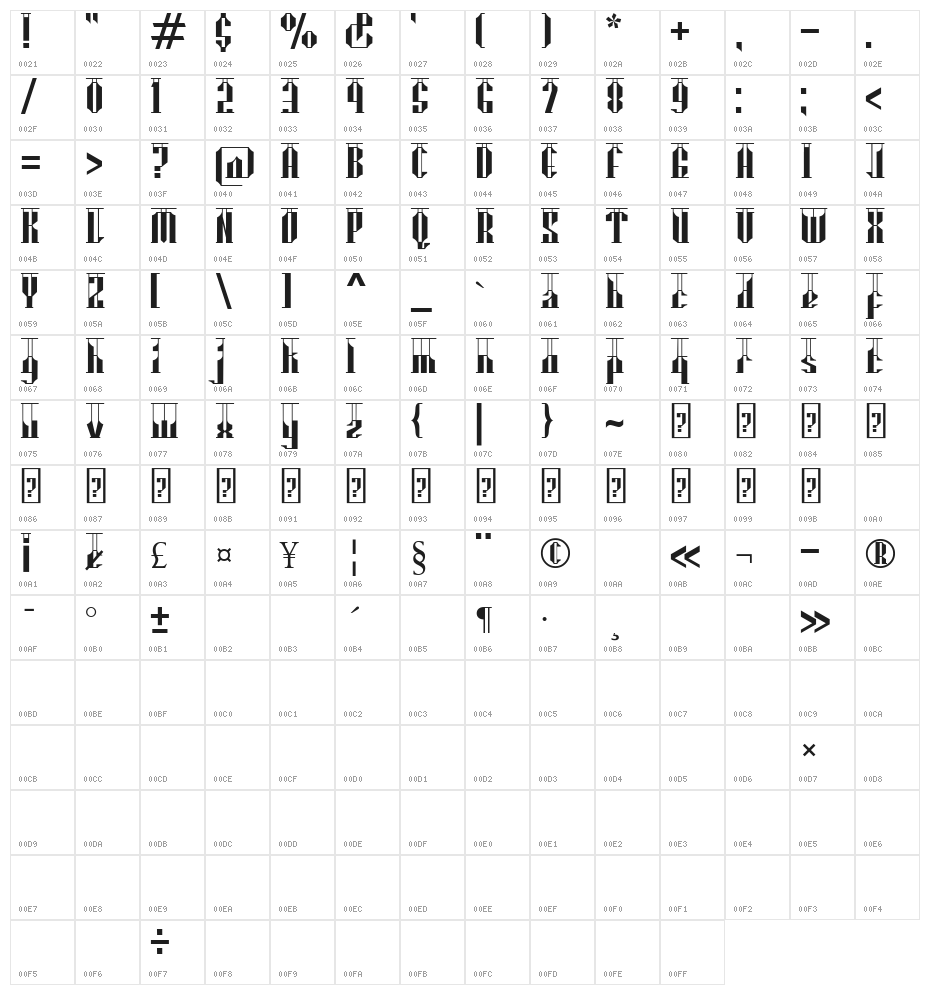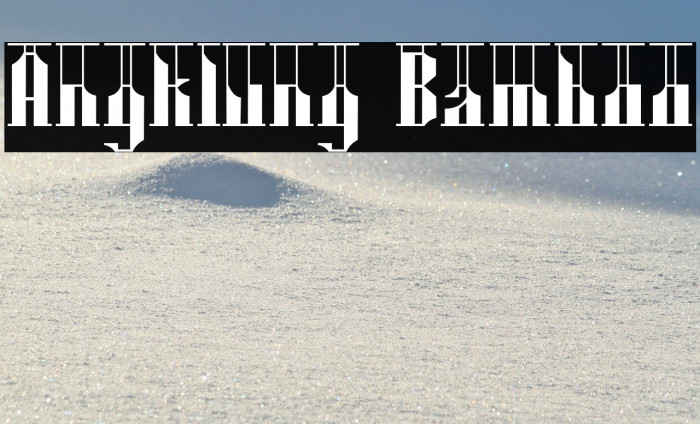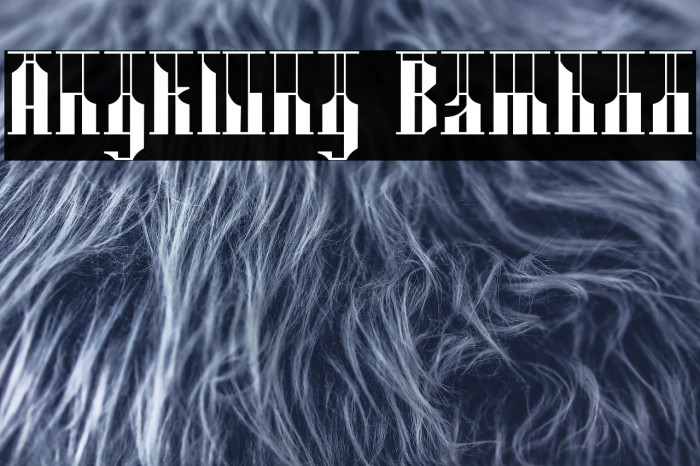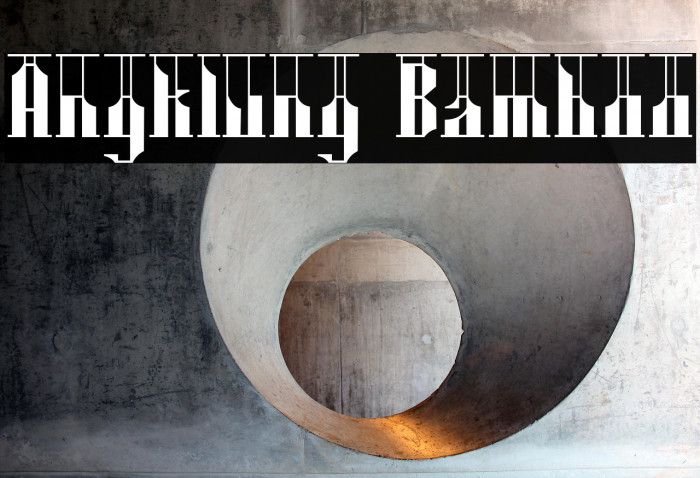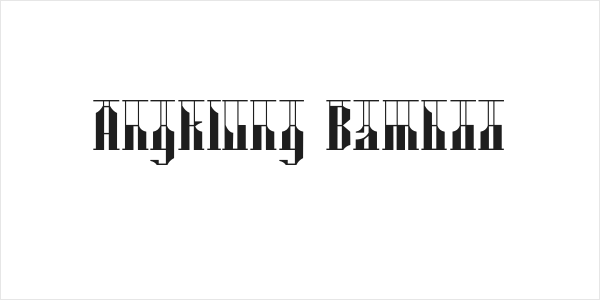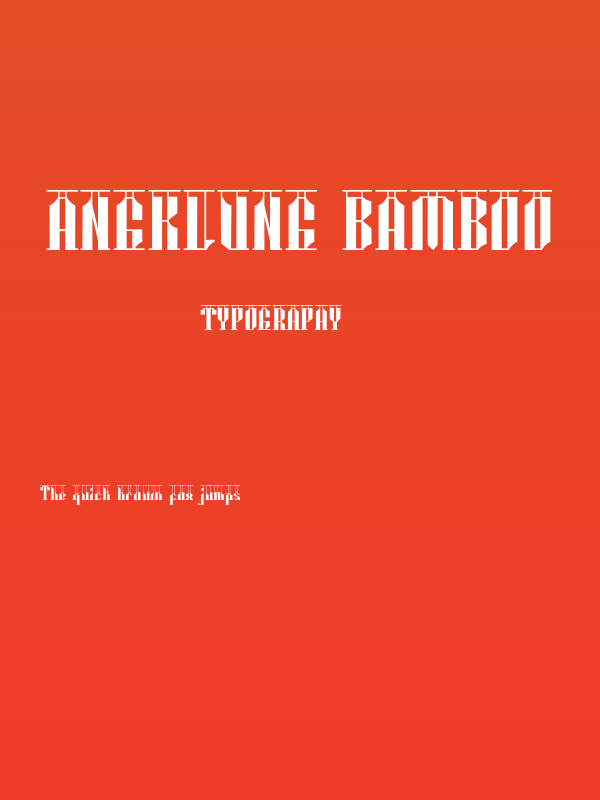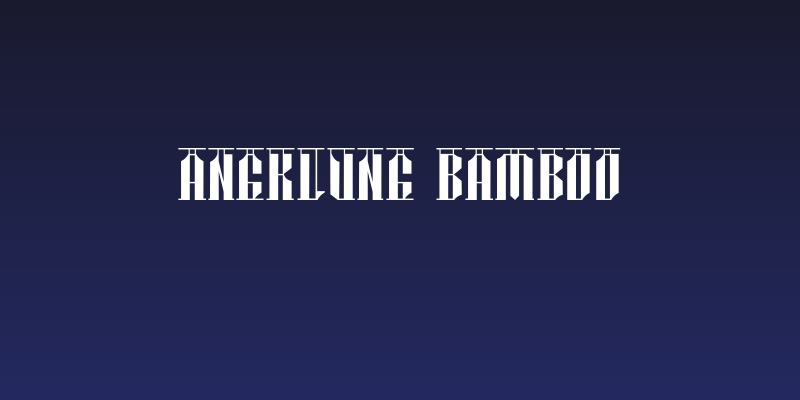
Angklung Bamboo Font
Angklung Bamboo Description
This font features a bold, geometric design with a distinctively modern and decorative style. The characters are constructed with sharp angles and straight lines, creating a striking and impactful appearance. The uppercase letters are particularly tall and narrow, while the lowercase letters maintain a consistent height, contributing to a cohesive look. The numbers and special characters follow the same design principles, ensuring uniformity across the font. The overall aesthetic is reminiscent of architectural structures, making it ideal for projects that require a strong visual presence.
| Proposed Projects | Ideal for branding, poster design, album covers, and any project requiring a bold visual impact. |